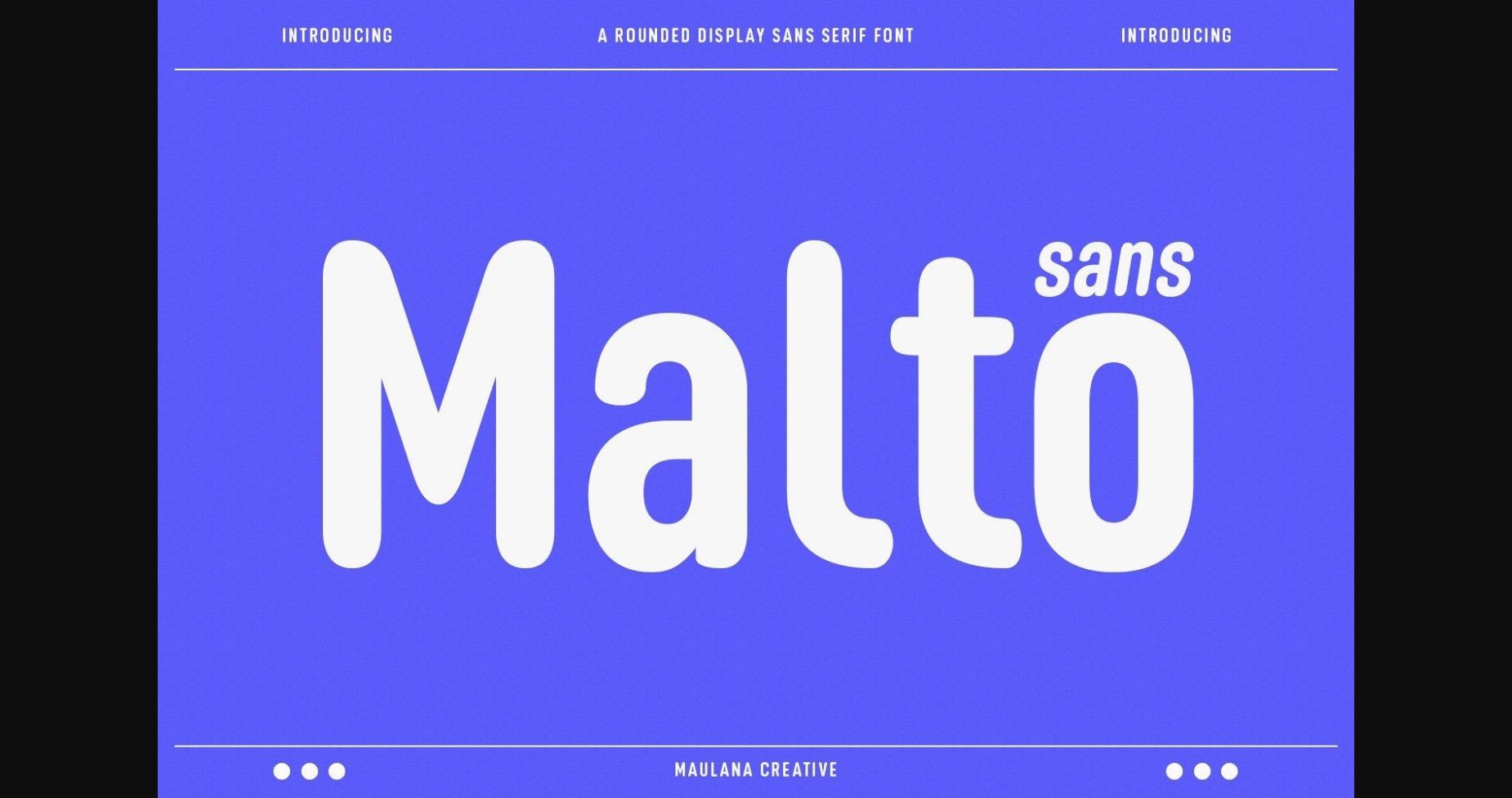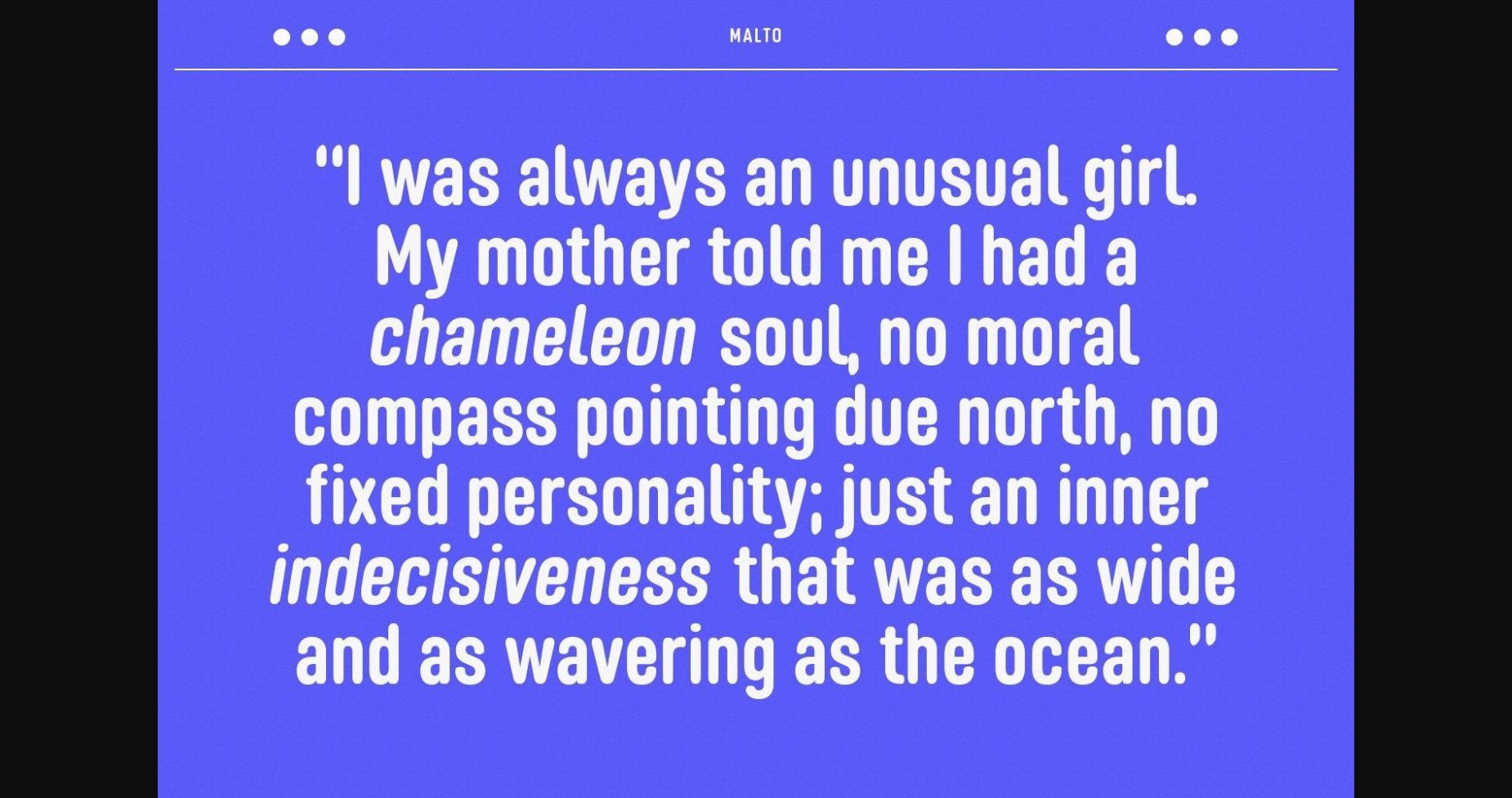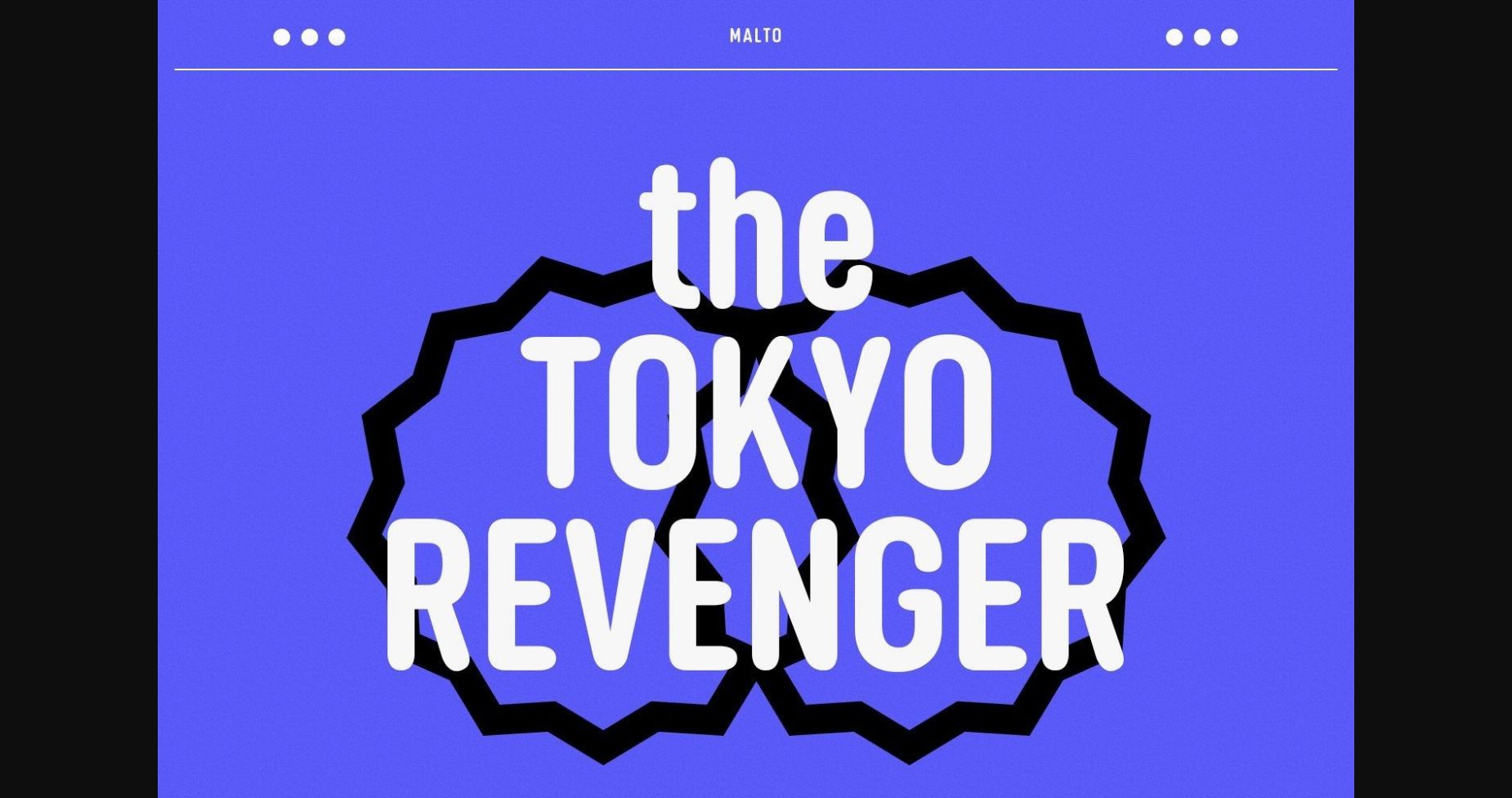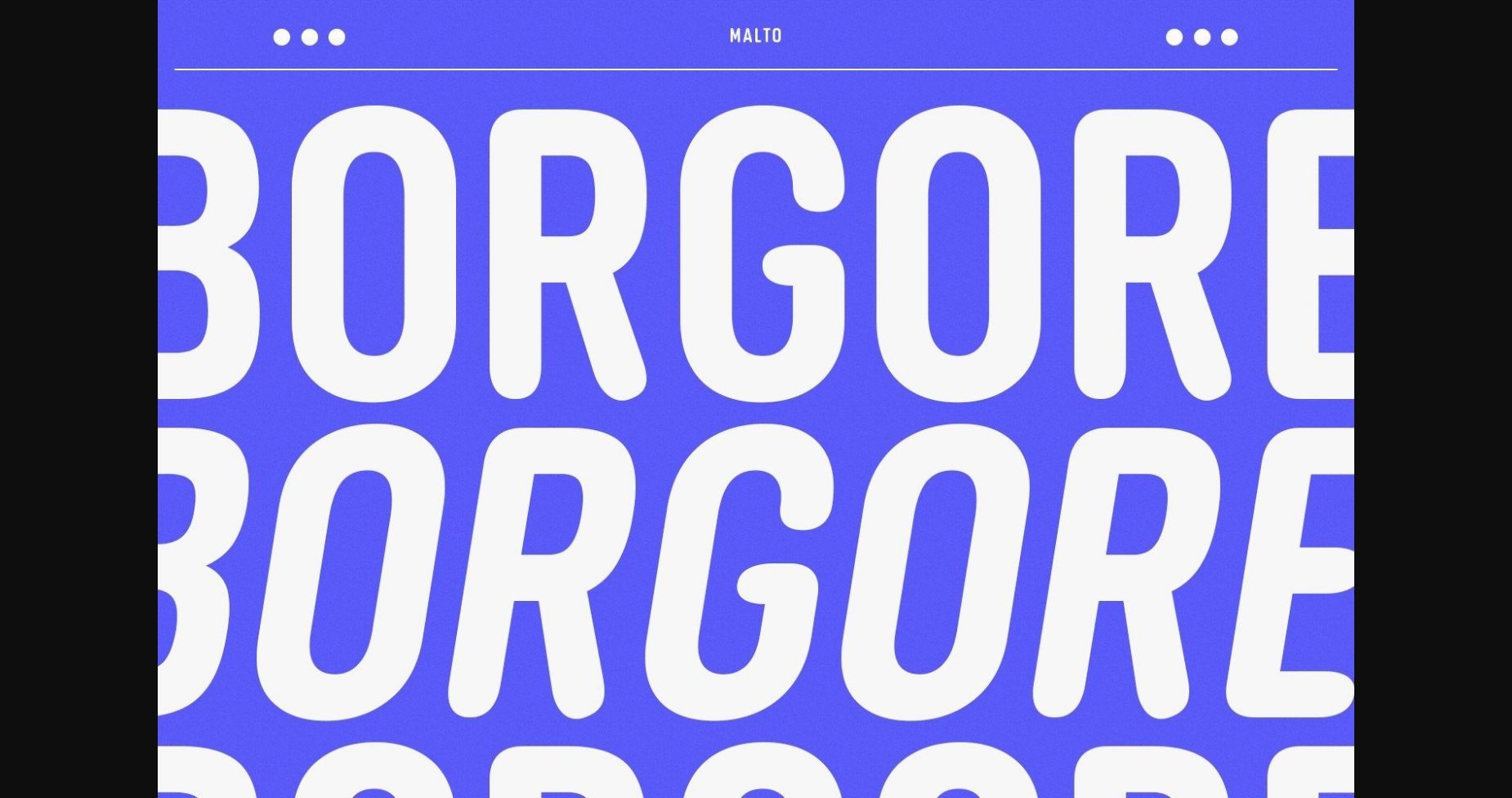
About Malto Font
Malto is a natural and elegant sans serif font. It can easily be matched to an incredibly large set of projects, so add it to your creative ideas and notice how it makes them stand out!